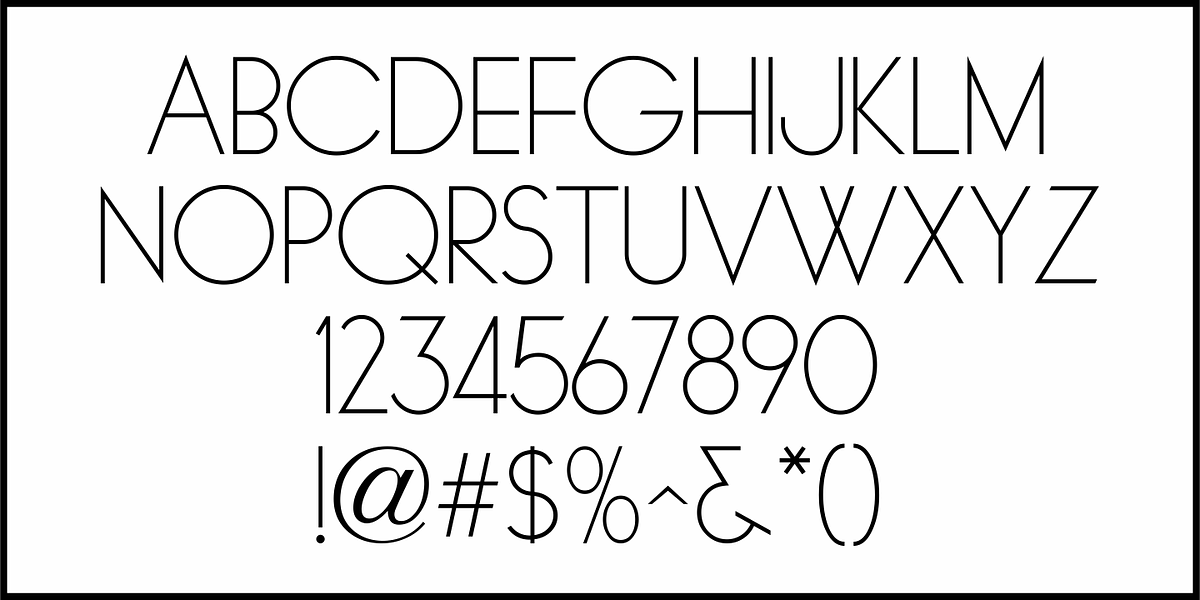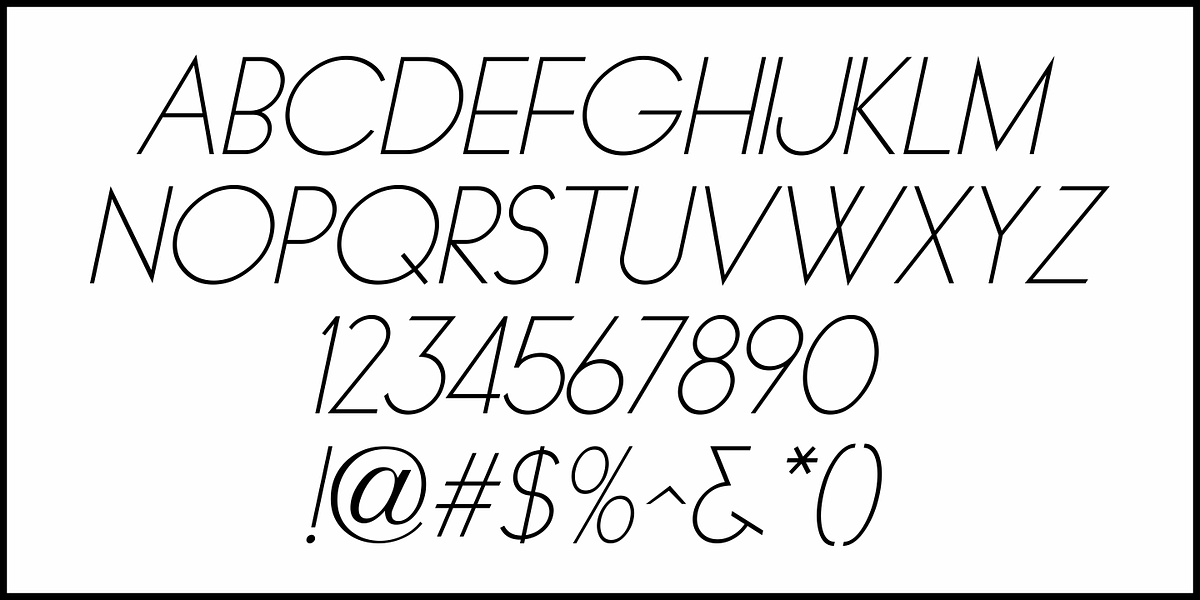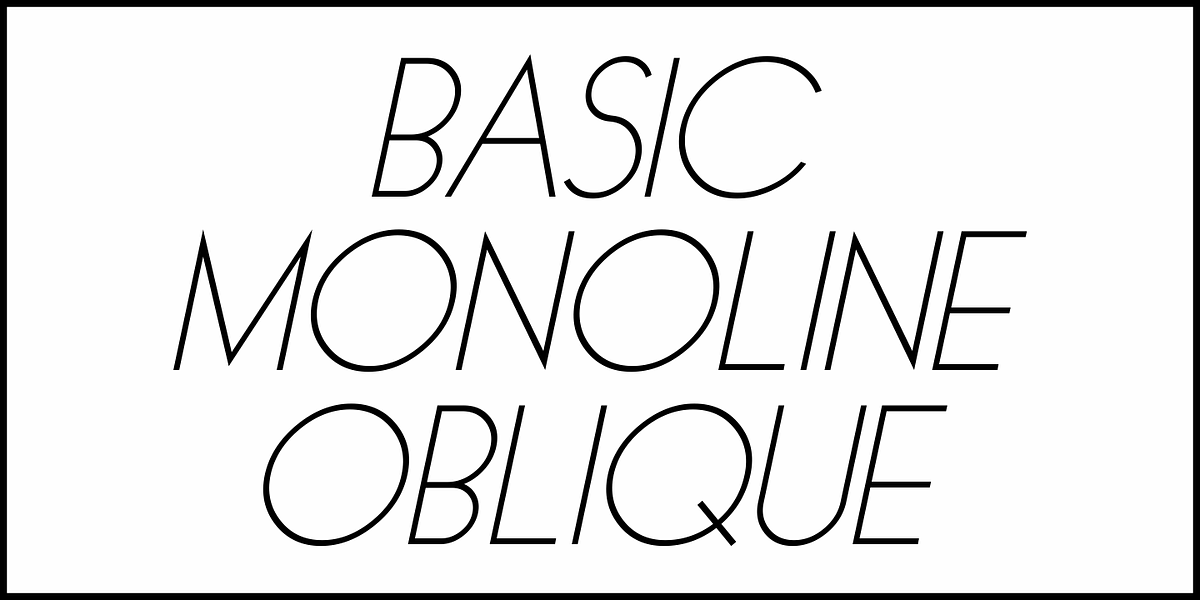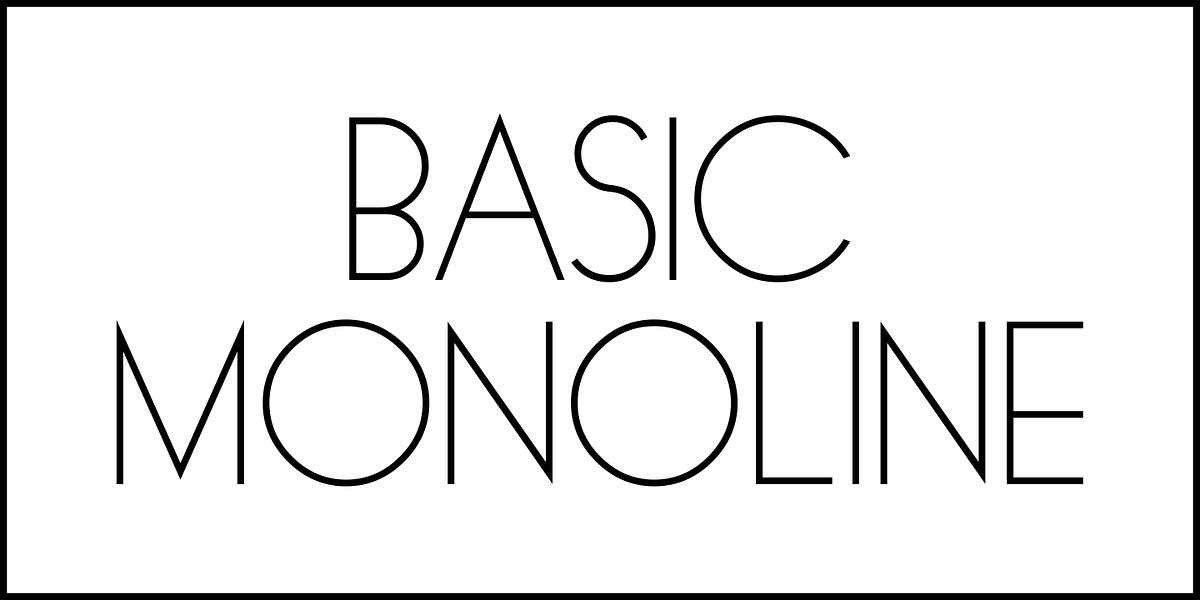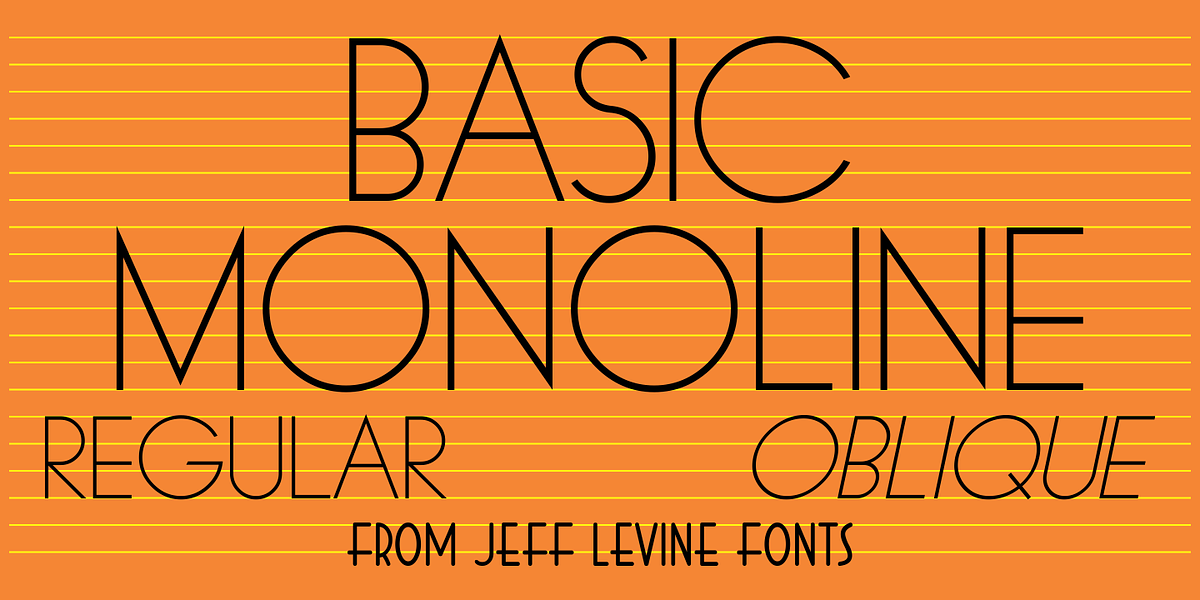
Basic Monoline JNL
On page 34 of the 1930 Samuel Welo publication “Lettering - Practical and Foreign” is a simple, basic Art Deco monoline design.
This hand lettered type style is now digitally available as Basic Monoline JNL in both regular and oblique versions.